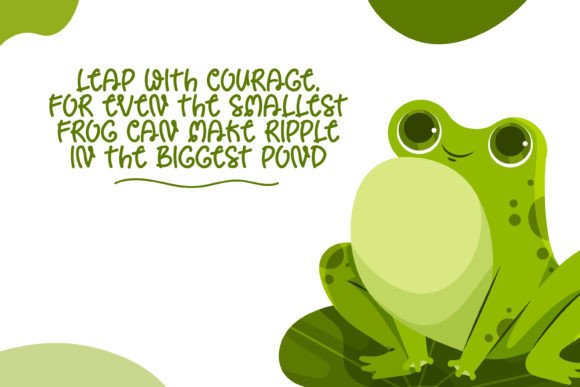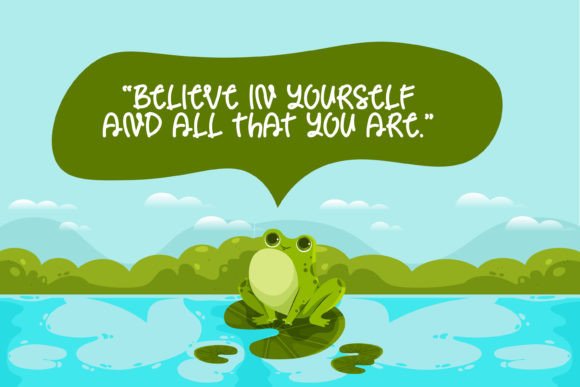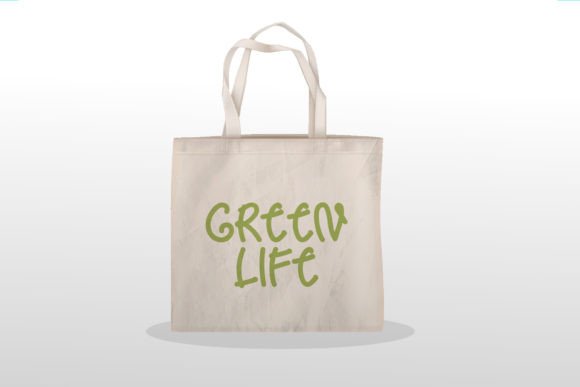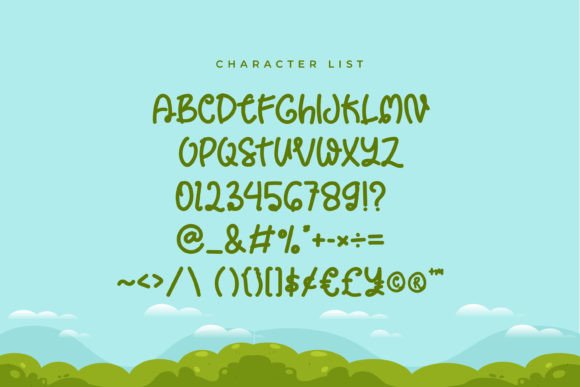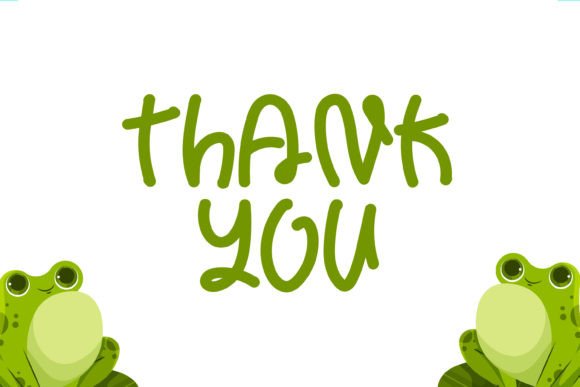
Discover the Playful Charm of Finding Frog Font
Are you on the hunt for a font that’s as fun and playful as it is trendy and authentic? Look no further than Finding Frog, a delightful display font that’s perfect for any children’s activity or school project. In this article, we’ll dive into the world of Finding Frog and explore what makes it a must-have for designers and crafters alike.
The Characteristics of Finding Frog Font
Finding Frog is a playful and cute display font that embodies the perfect blend of trendiness and authenticity. Its unique design makes it stand out from other fonts, with a charm that’s sure to capture the attention of your audience. Whether you’re working on a children’s book, a school project, or a fun craft activity, Finding Frog is the ideal choice.
What Makes Finding Frog So Special?
So, what sets Finding Frog apart from other fonts? Here are just a few of its standout features:
- Playful and Cute: Finding Frog is a font that’s all about fun and playfulness. Its cute and quirky design makes it perfect for projects that require a lighthearted touch.
- Trendy and Authentic: Despite its playful nature, Finding Frog is also a trendy and authentic font that’s perfect for projects that require a modern edge.
- Highly Versatile: Finding Frog is a highly versatile font that can be used for a wide range of projects, from children’s books and school projects to craft activities and more.
Using Finding Frog for Design and Craft Projects
Finding Frog is a font that’s specifically designed for use in design and craft projects. Here are just a few ideas for how you can use it:
- Children’s Books: Finding Frog is perfect for use in children’s books, with its playful and cute design making it a natural fit for stories and illustrations.
- School Projects: Whether you’re a teacher or a student, Finding Frog is a great choice for school projects that require a fun and engaging font.
- Craft Activities: Finding Frog is also perfect for use in craft activities, such as making cards, gift tags, and other DIY projects.
Tips for Getting the Most Out of Finding Frog
To get the most out of Finding Frog, here are a few tips to keep in mind:
- Use it in Large Text: Finding Frog is a display font, so it’s best used in large text sizes where its playful and cute design can really shine.
- Experiment with Colors: Finding Frog looks great in a wide range of colors, so don’t be afraid to experiment and find the perfect hue for your project.
- Pair it with Other Fonts: Finding Frog can be paired with other fonts to create a unique and eye-catching design. Try pairing it with a bold sans-serif font for a fun and modern look.
Finding Frog is a playful and cute display font that’s perfect for any children’s activity or school project. With its trendy and authentic design, it’s a great choice for designers and crafters who want to add a touch of fun and whimsy to their work. Whether you’re working on a children’s book, a school project, or a craft activity, Finding Frog is sure to be a hit. So why not give it a try and see what amazing projects you can create?